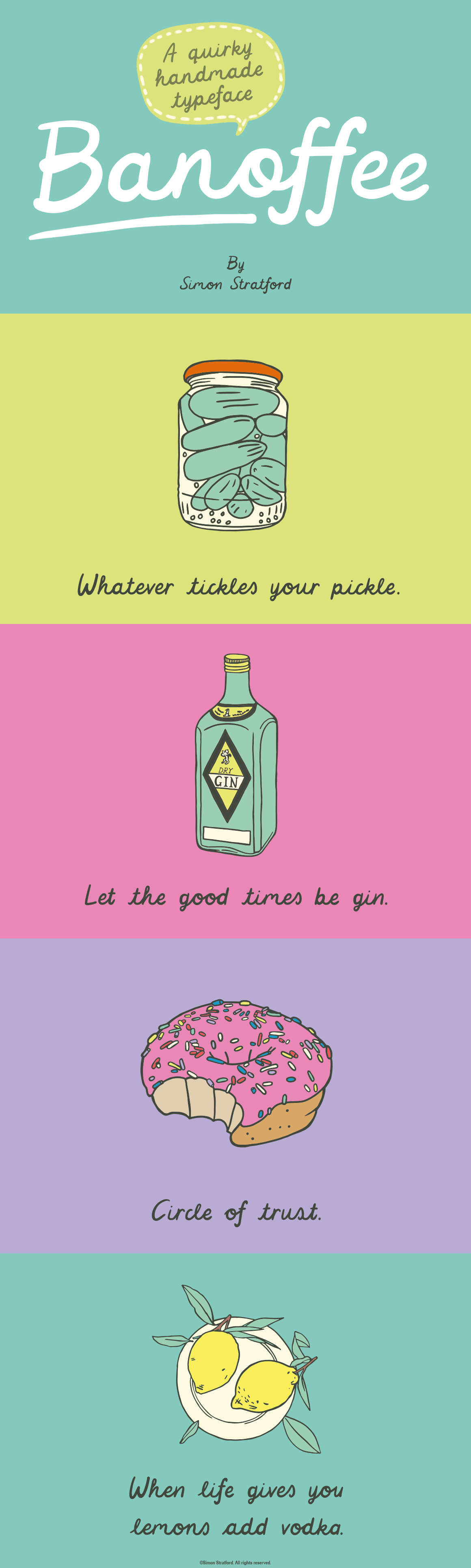
Script font Banoffee handmade
Introducing Banoffee my latest handmade script font. It's a playful, somewhat kooky typeface that tries its best to look like real handwriting.
It has a fun and playful style, kind of childlike without looking too childish.
It uses OpenType features and has ligatures, terminals, and realistic looking connections. The character set includes western, central and south-eastern European glyphs.
If the font was a celebrity it would be more Simon Pegg than Simon Cowell as it doesn't have a nasty bone in its body.
Banoffee is perfect for greetings cards, posters and branding or anything where you want that cheerful handmade look.
The font also includes a small collection of ornaments.
- One weight
- One decorative ornament set
- Upper and lowercase glyphs
- Punctuation and Symbols
- Initial and terminal forms
- Central European characters
- Western European characters
- South Eastern European characters